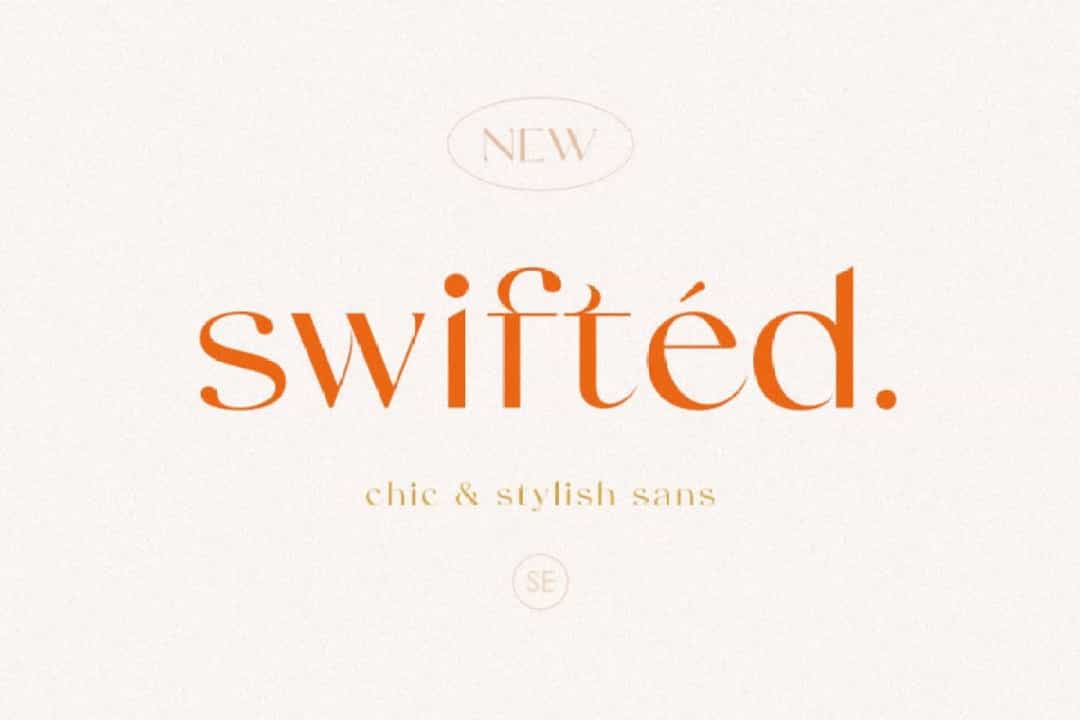
Swifted Font: You already know that sans is chic and fashionable! Swifted is a clean and modern font with some unique features that it is recommended to use it in large sizes for titles or headlines or short texts. All the characters are given very attractive designs and hence the font looks very fashionable.